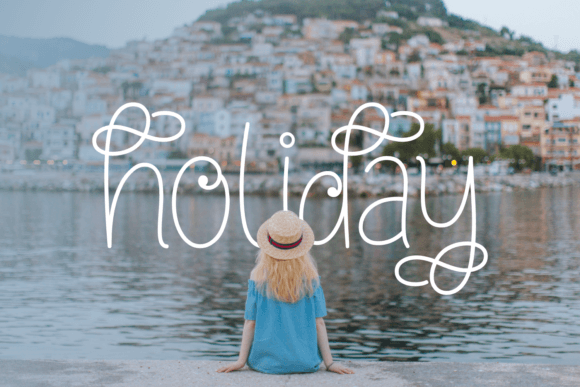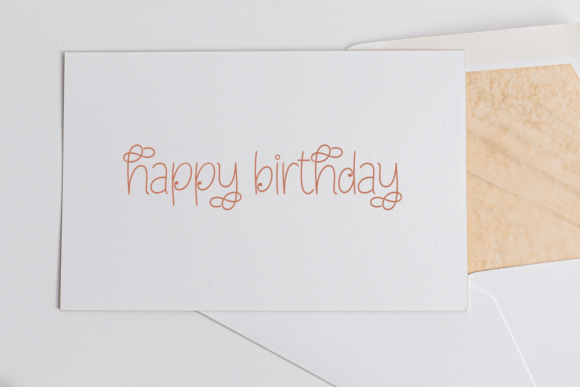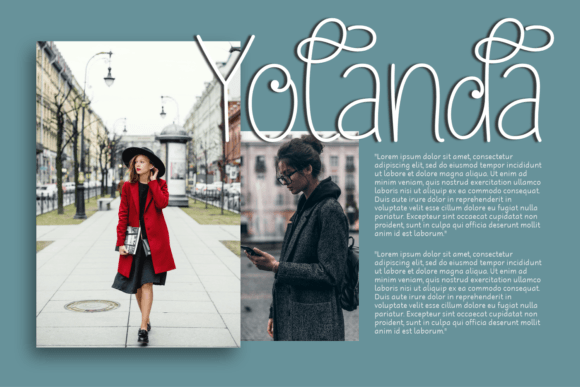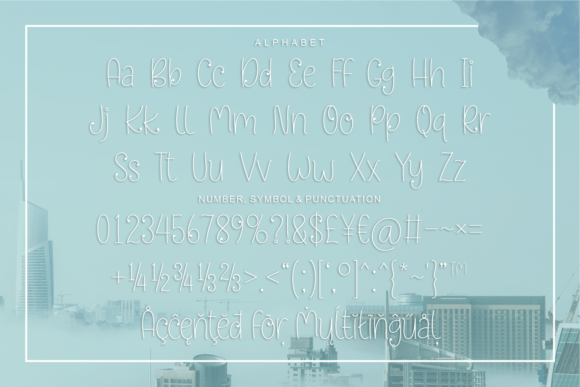
Introduction to Sky Dance Font
Have you ever sat at your desk, staring at a blank page, and suddenly, a spark of creativity hits you? The ideas start flowing, and you know exactly what you want to create. For designers, those moments are the best, and with the right tools, they can become even more magical. That’s where the Sky Dance Font comes in – a delicate and unique handwritten font that will bring your creative ideas to life.
This stunning font features thin characters and sweet curly extra swashes, making it perfect for adding a touch of elegance to your designs. Whether you’re working on a project that requires a high-quality, free download font or need a design resource with a transparent background, Sky Dance Font is an excellent choice. With its PUA encoding, you’ll have easy access to all the glyphs and swashes, giving you endless possibilities to experiment and create something truly special.
Key Features of Sky Dance Font
- High-quality design: Sky Dance Font is crafted with precision and attention to detail, making it perfect for creative projects.
- Large character set: The Sky Dance Font includes a comprehensive set of characters, including uppercase and lowercase letters, numbers, and punctuation.
- High-resolution design: With a resolution of 300 DPI, this font is suitable for print and digital applications, including posters, flyers, and business cards.
- Unique style: Sky Dance Font features a distinctive, hand-drawn design that adds a touch of elegance and sophistication to your creative project.
- Easy to use: This font is designed to be user-friendly, making it perfect for designers of all skill levels and experience.
Honest Review: Sky Dance Font
I recently had the chance to try out the Sky Dance Font, and I must say it’s been a game-changer for my creative projects. As a designer, I’m always on the lookout for high-quality fonts that can elevate my designs and make them stand out.
One of the things I love about the Sky Dance Font is its versatility. It’s perfect for a wide range of creative projects, from logos to social media graphics, and even packaging designs. Plus, it’s available for free download, which is a huge bonus for designers on a budget.
- ✨ Versatile and suitable for a wide range of designs
- ⚠️ Limited number of characters and glyphs, which can be a limitation for some designers
- ⚠️ Not ideal for use in small font sizes, as it can become difficult to read
Overall, I’m really impressed with the Sky Dance Font. While it may have some limitations, its high-quality design and versatility make it a valuable addition to any designer’s toolkit. If you’re looking for a free design resource that’s perfect for creative projects, the Sky Dance Font is definitely worth checking out.
Tips for Getting the Most Out of Sky Dance Font
For the best results, use the Sky Dance Font with a transparent background to create a stunning visual effect. Experiment with different font sizes, colors, and styles to match your creative project’s theme.
The Sky Dance Font is perfect for creative projects, such as wedding invitations, social media graphics, and marketing materials. Its high-quality design makes it an ideal design resource for any professional or personal project.